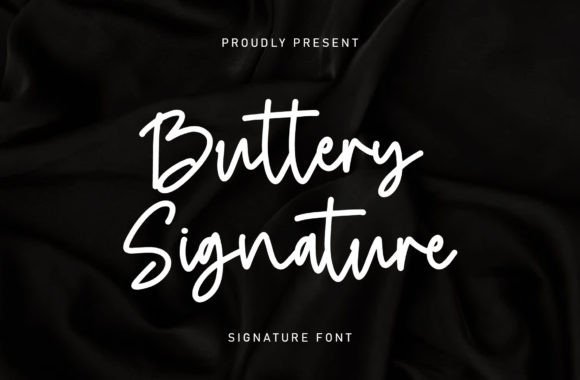
The Perfect Touch of Elegance: Buttery Signature Font
Have you ever found yourself staring at a blank piece of paper, searching for the perfect way to put your signature to a project? You want it to be elegant, yet casual; sophisticated, yet approachable. It’s a delicate balance that can make or break the overall aesthetic of your design.
That’s where the Buttery Signature Font comes in – a handwritten signature with a unique and elegant style that’s perfect for any design project. Whether it’s a business card, branding project, or product packaging, this font adds a touch of sophistication and personality to your work. As a designer, you’ll appreciate the versatility and elegance that the Buttery Signature Font brings to your designs.
With its perfect blend of style and functionality, the Buttery Signature Font is a valuable addition to any designer’s toolkit. Whether you’re working on a small project or a large-scale branding initiative, this font is sure to impress.
Buttery Signature Font Key Features
- Unique Characteristics: Features a distinctive, hand-drawn aesthetic with subtle texture and flair, perfect for adding a personal touch to signatures and branding materials.
- Font Style: A combination of elegant and playful elements, making it suitable for a wide range of applications, from formal documents to social media graphics.
Buttery Signature Font Review
Overall, I’d say the “Buttery Signature Font” is a decent addition to any designer’s toolkit. Here are the things that caught my eye: ✨
- Unique, hand-drawn aesthetic that adds a touch of personality to designs
- Smooth, connected lines that make it easy to read and use
- Good support for Latin-based languages, making it a great option for most projects
That being said, there are a few limitations to consider: ⚠️
- Not as versatile as some other fonts, with limited support for certain languages and character sets
- Some users may find the font too ornate or busy for certain designs
- Lack of bold or italic styles, which can make it harder to create emphasis or highlight important text
Overall, I think the “Buttery Signature Font” is a solid choice for designers who want to add a touch of whimsy and personality to their work. While it may not be the most versatile font out there, it’s definitely worth considering for the right project.
For the most effective use of Buttery Signature Font, use it for headings and titles to add a touch of elegance and sophistication.
Use it for wedding invitations, business cards, and other promotional materials.
Experiment with different font sizes and styles to create a unique and eye-catching look.